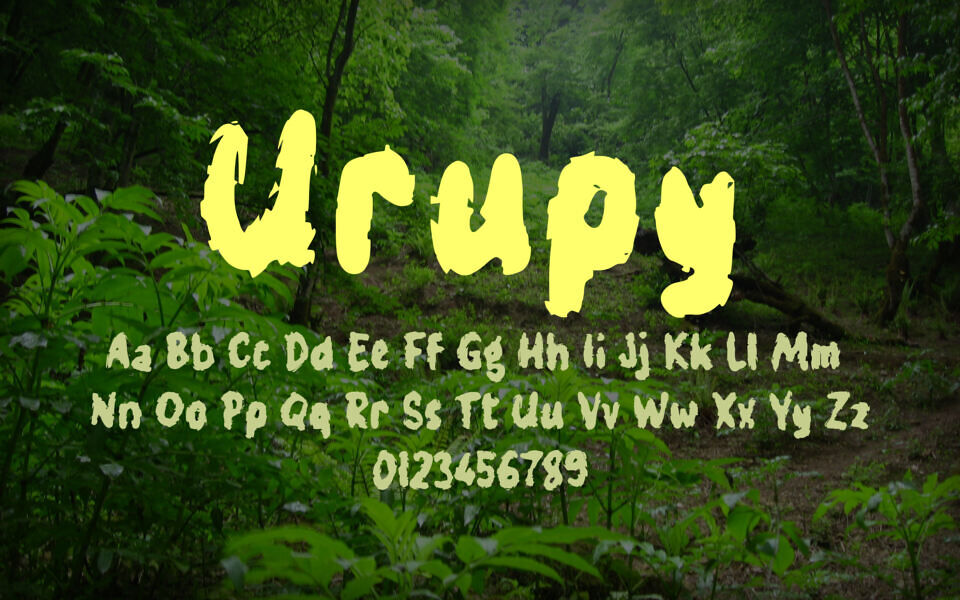
Urupy Font
Urupy is a bold, textured display font crafted by Wahyu Eka Prasetya. It features 95 glyphs and is ideal for posters, branding, and expressive headlines. Its rough, brush-like strokes convey a raw, energetic style.